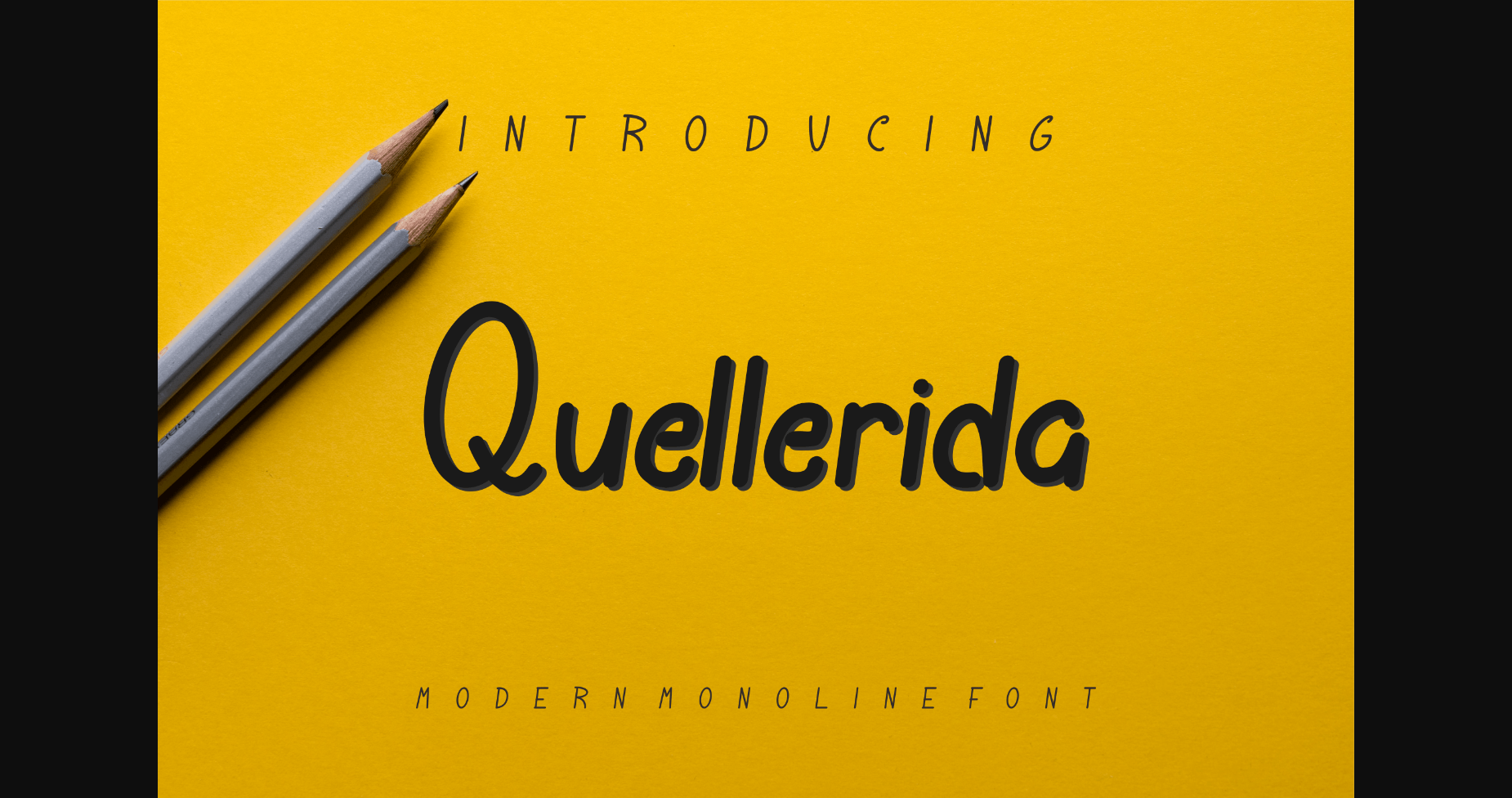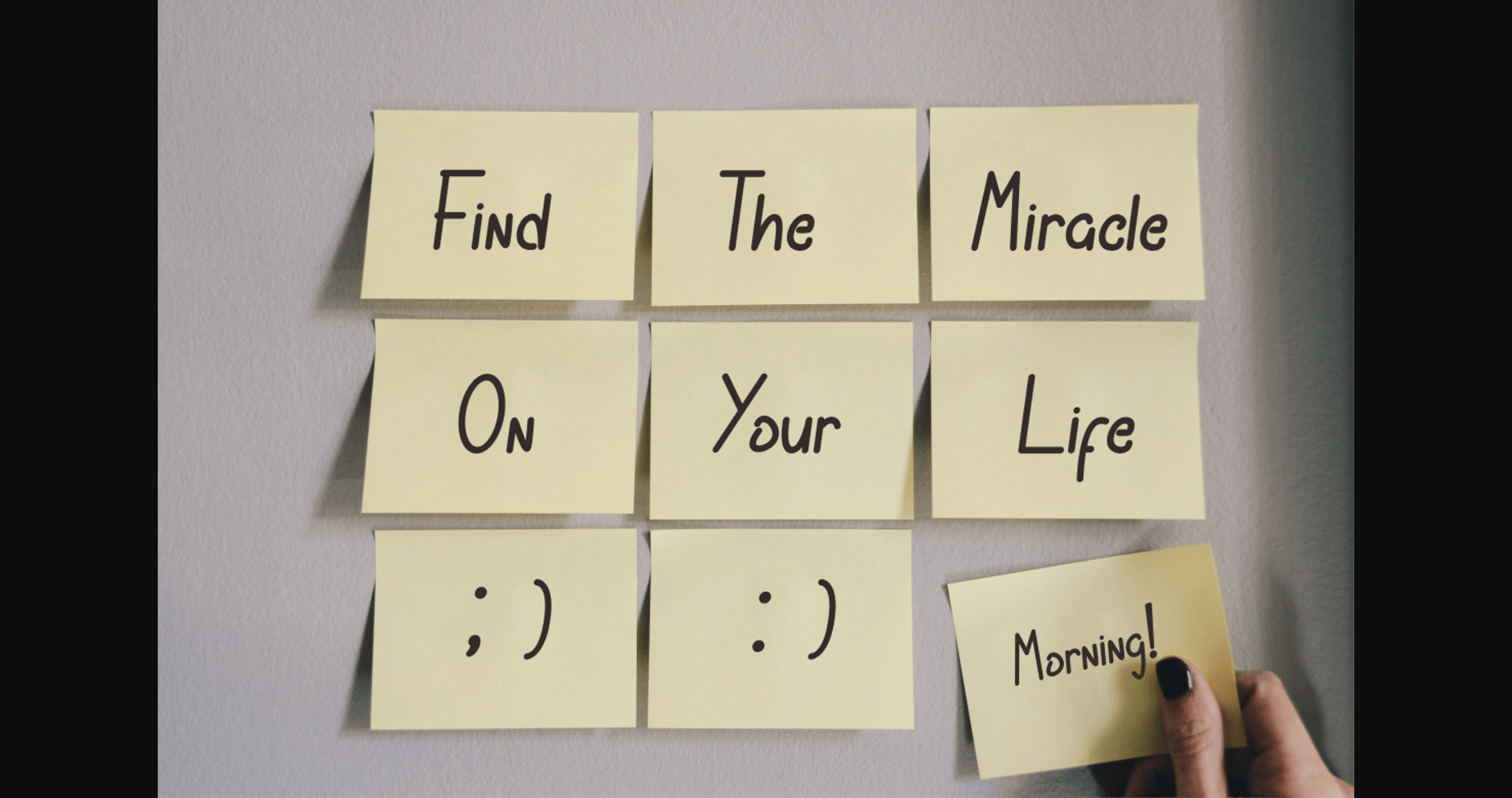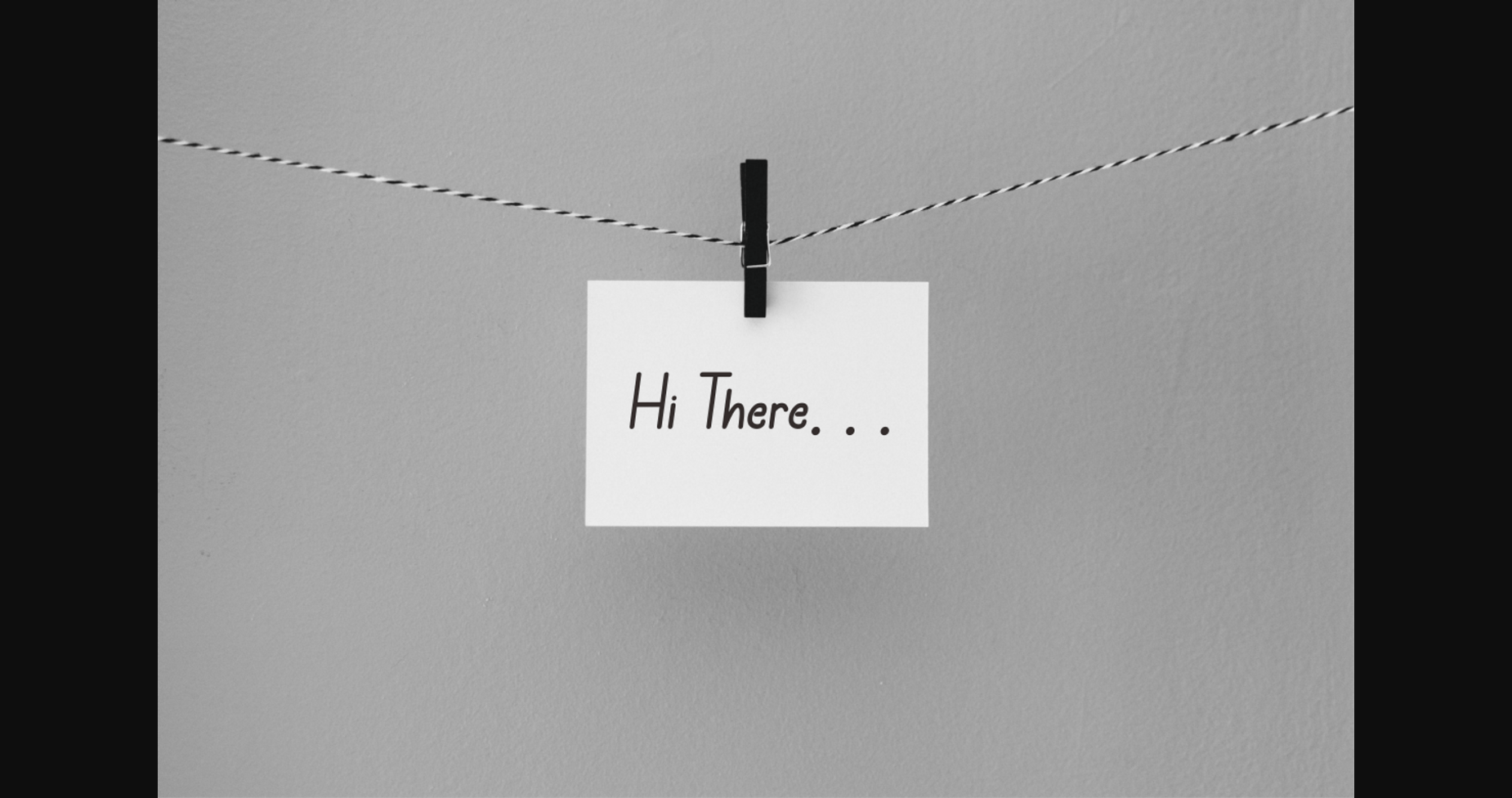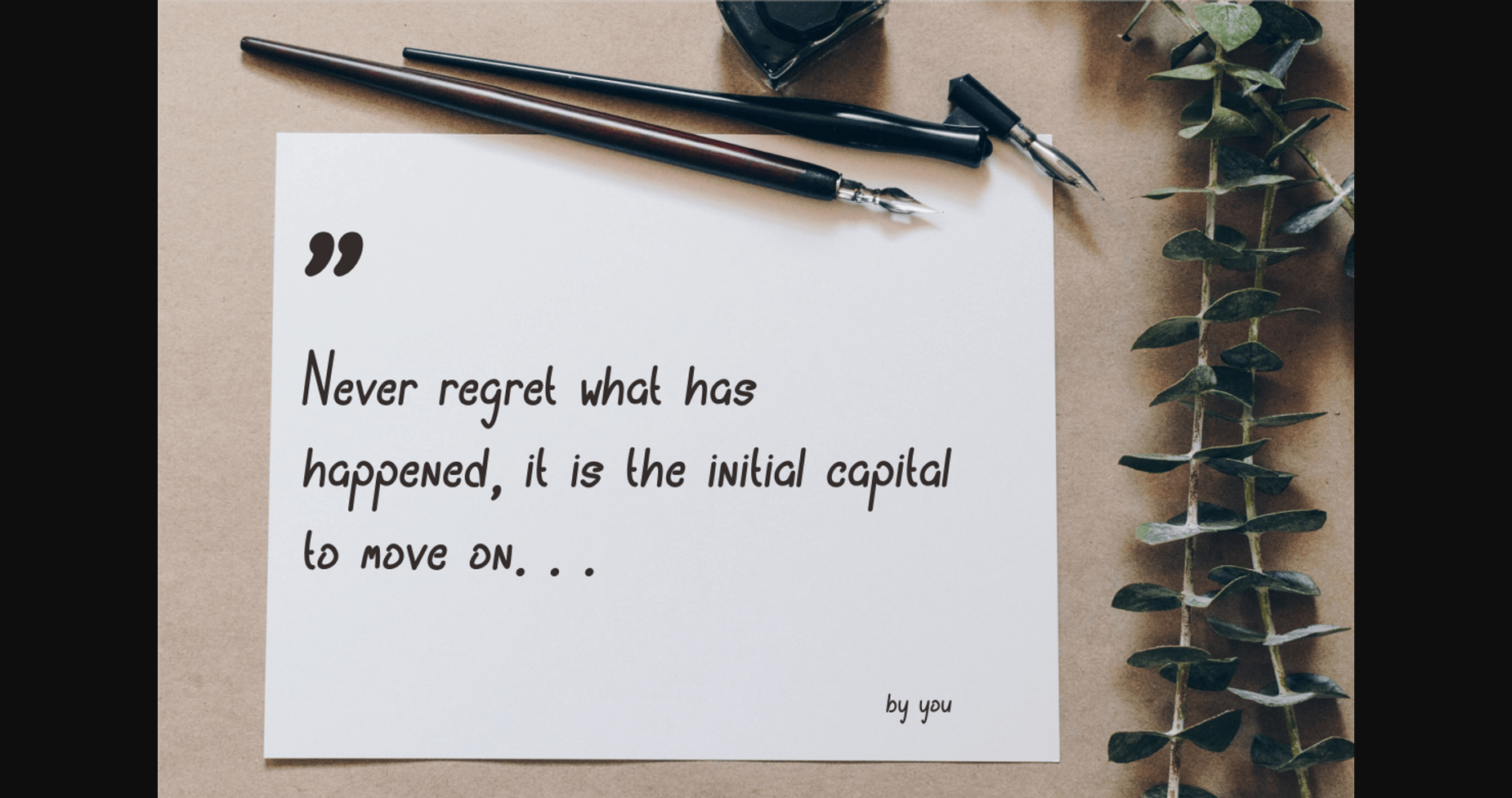
About Quellerida Font
Quellerida is a bold and authentic sans serif font. The font is suitable for any branding project like logo, t-shirt printing, export, and many more. It looks outstanding in a wide range of contexts.